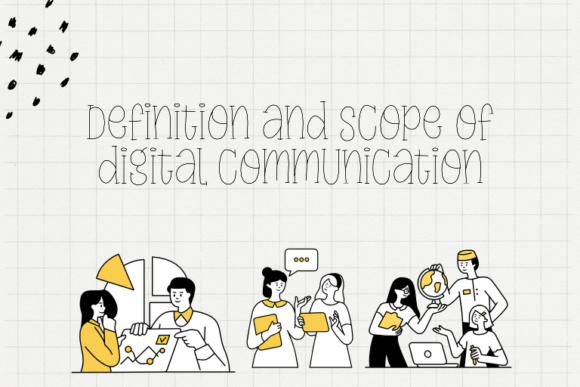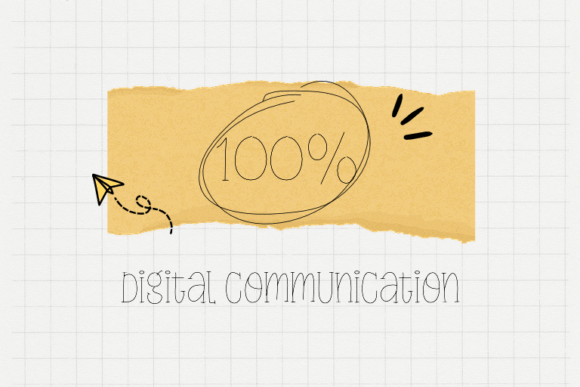
Purely Digital is a cute and lovely single-line font. Perfect for adding a touch of sweetness to your designs, this font is sure to make your projects stand out.
Purely Digital Font